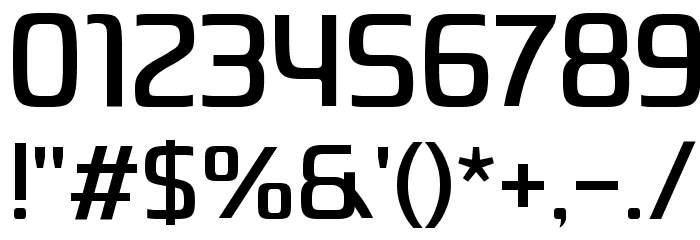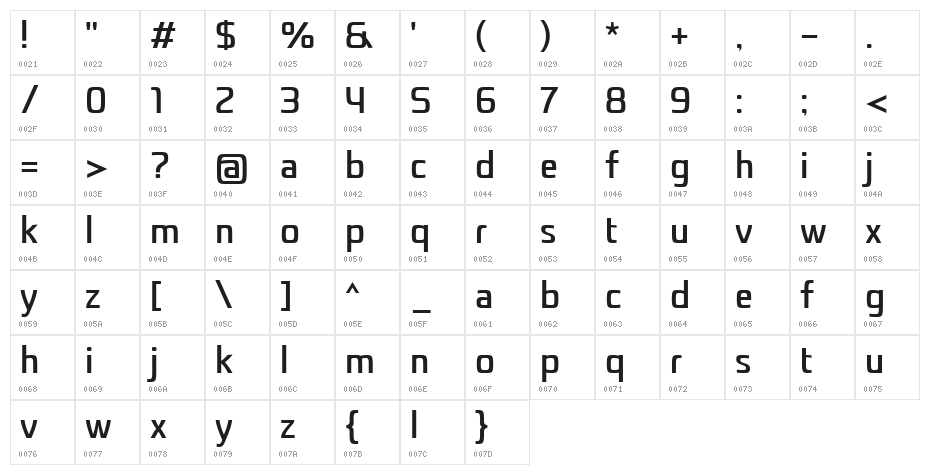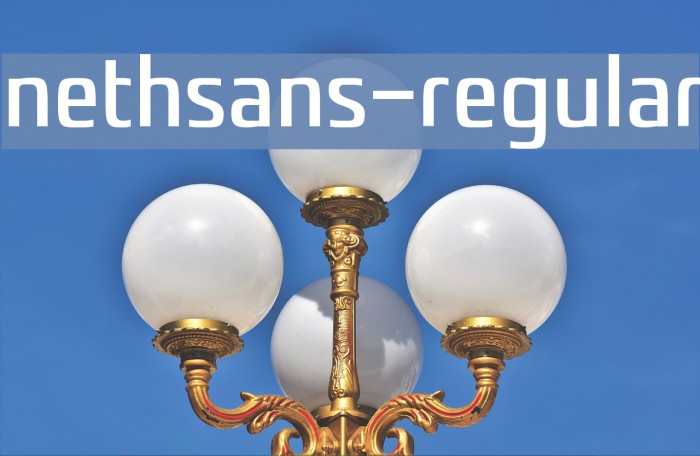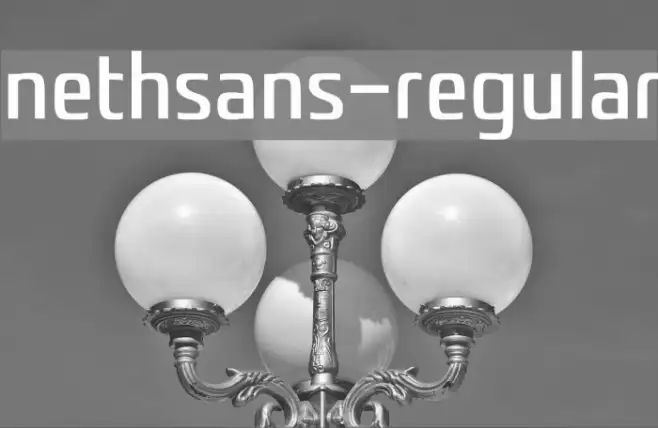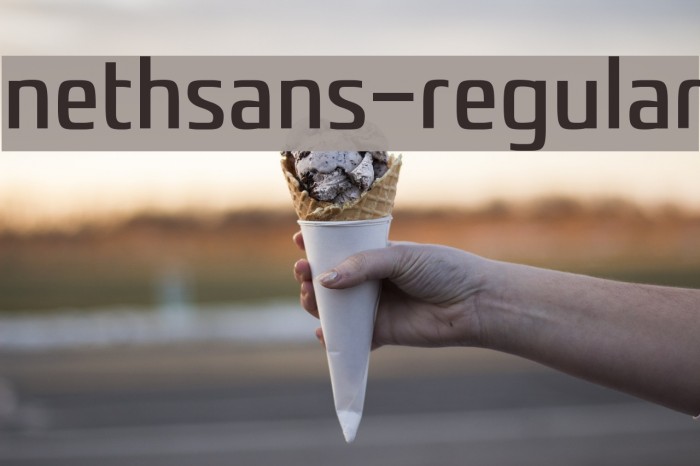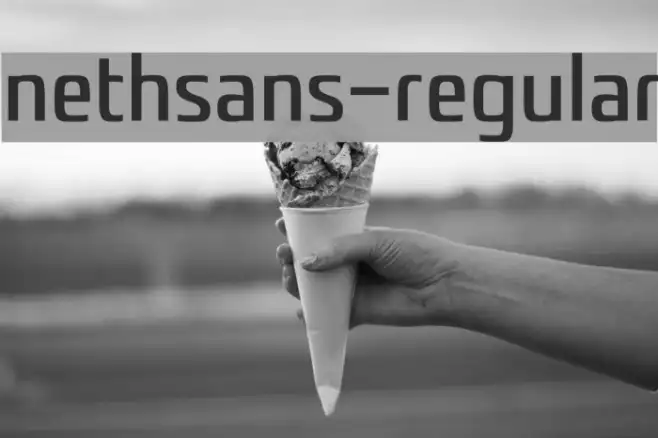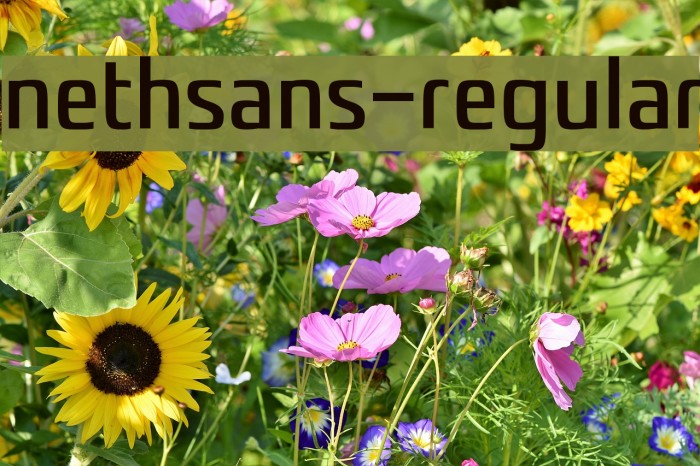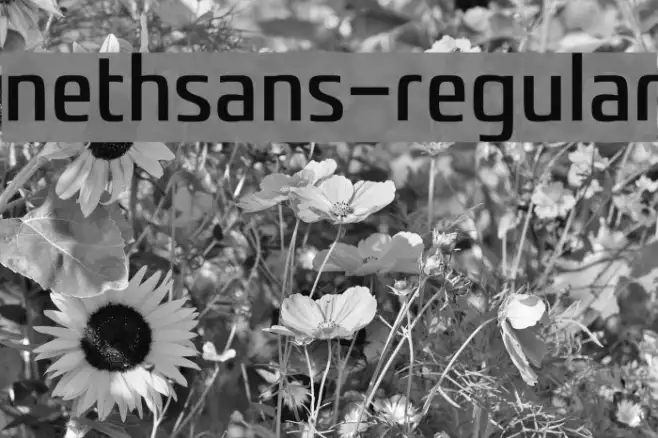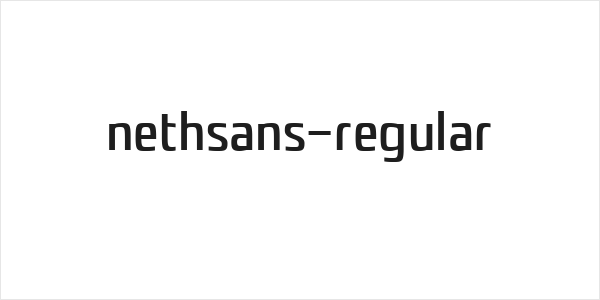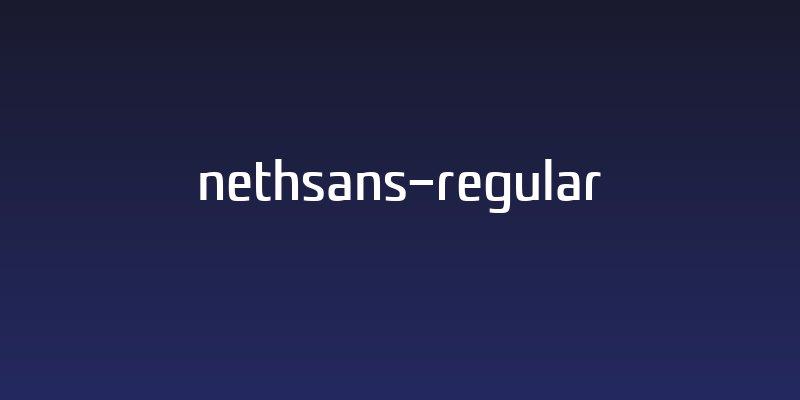
nethsans-Regular Font
nethsans-Regular Description
This font features a clean and modern sans-serif design, characterized by its geometric shapes and uniform stroke widths. The letters are slightly rounded, giving it a friendly and approachable appearance. The lowercase letters maintain a consistent height, while the uppercase letters are bold and prominent, making them stand out. The numerals are clear and easy to read, with a uniform width that complements the overall design. Special characters are well-integrated, maintaining the font's cohesive look. This font is versatile, suitable for both digital and print media, offering readability and style.